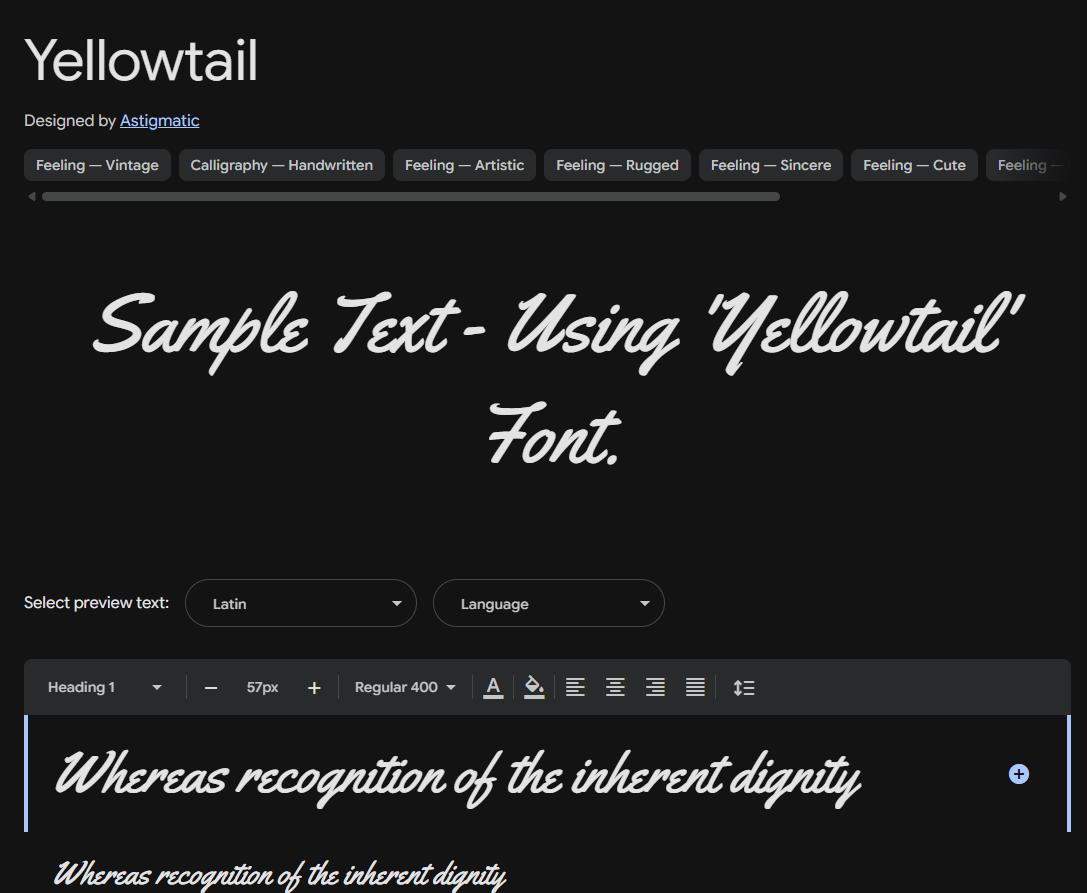
Yellowtail, a singular-weight brush script engineered by Brian J. Bonislawsky of Astigmatic, functions as a high-fidelity bridge between 1930s sign-painting heritage and contemporary screen-rasterization demands. By synthesizing influences from mid-century precursors like Gillies Gothic with a more upright, non-connecting terminal structure on specific lowercase glyphs, the typeface achieves a rhythmic fluidity that circumvents common legibility pitfalls in digital display environments. Its optimized Bezier curves and generous x-height facilitate superior stroke modulation, allowing the single-style weight to maintain its organic, hand-lettered aesthetic while adhering to the rigorous semantic accessibility standards required for modern responsive web typography.
Yellowtail, an evocative brush script engineered by Astigmatic, masterfully synthesizes mid-century signage aesthetics with modern digital legibility to project a profoundly vintage yet artistic aura. Characterized by its informal calligraphy and handwritten fluidity, the typeface utilizes unique letterforms and a distinct rhythmic slant that oscillates between a rugged, bold presence and a sincere, approachable warmth. Its weighted terminals and bouncy baseline evoke a playful and happy disposition, often categorized as cute in boutique branding, while its structural roots in 1930s ad-lettering provide a sophisticated technical backbone for display hierarchies. By balancing high-contrast stroke widths with an optimized x-height, Yellowtail functions as a semantically rich tool for designers seeking to inject a sense of human personality and nostalgic craftsmanship into contemporary layouts.
In the context of high-precision technical documentation and accessibility-driven digital interfaces, the Yellowtail typeface by Astigmatic proves functionally obstructive due to its fixed single-weight stroke modulation and aggressive slant, which destabilize the vertical rhythm required for rapid scanning in data-intensive sectors like aerospace or legal compliance. The absence of multiple weights or optical sizing prevents the necessary hierarchical contrast required for WCAG 2.1 compliance, as its brush-script glyphs exhibit significant legibility degradation when rendered at small point sizes, leading to character collisions that compromise cognitive processing for users with visual impairments. Furthermore, the font's specific rhythmic ligatures and casual baseline, while aesthetically pleasing for vintage signage, introduce detrimental visual noise in long-form body text, where the lack of a neutral x-height and consistent counter-spaces disrupts the saccadic movements essential for efficient information retention in high-density professional environments.
Yellowtail excels in vintage, 1930s-inspired aesthetics and casual advertising layouts that require a hand-painted feel. Its low-contrast, heavy stroke weights optimize legibility in retro-themed digital environments compared to more delicate copperplate scripts.
This font is primarily designed for display use and is generally unsuitable for extensive blocks of body copy. The non-modular nature of its connecting glyphs increases cognitive load, significantly reducing reading speed in paragraphs exceeding fifty words.
Clean sans-serifs and sturdy slab-serifs provide the best structural balance to Yellowtail's fluid, calligraphic curves. Utilizing a high x-height geometric sans-serif creates a necessary typographic hierarchy that anchors the script's rhythmic baseline shifts.
Yellowtail should never be set in all-caps because the characters are specifically engineered to connect via lowercase out-strokes. Forcing an all-caps setting breaks the font's kerning pairs and disrupts the fluid OpenType ligature continuity essential for its brush-script DNA.
Yellowtail is an excellent choice for logos requiring a friendly, approachable, and hand-painted appearance with modern structural integrity. Its vector-optimized nodes ensure that the Bezier curves remain smooth and distinct during high-resolution large-format printing and scaling.
Readability tends to decrease at small sizes as the thick strokes begin to close up the internal counters of the characters. Technical analysis reveals that its stroke-to-counter ratio is better suited for display sizes above 24pt to prevent ink traps and pixel blurring on low-density screens.
The typeface projects a warm, energetic, and nostalgic mood reminiscent of mid-century American sign painting. This atmosphere is achieved through an upright axis and consistent slant angle that evokes the kinetic energy of manual calligraphy.
It works effectively for editorial headers that aim for a personalized, boutique, or artisanal aesthetic rather than stark minimalism. Incorporating its bold terminal swashes into a header helps establish a clear visual focal point within complex CSS grid layouts.
Increasing the letter-spacing or tracking will break the visual connections between characters, ruining the intended script effect. Maintaining a zero-tracking value is crucial to preserving the integrity of the exit-entry stroke intersections defined in the font's internal glyph metrics.
Yellowtail is highly effective for signage due to its bold presence and excellent contrast against varied backgrounds. The substantial stem thickness provides high visual impact, ensuring that the rasterized edges remain crisp even when viewed from significant physical distances.